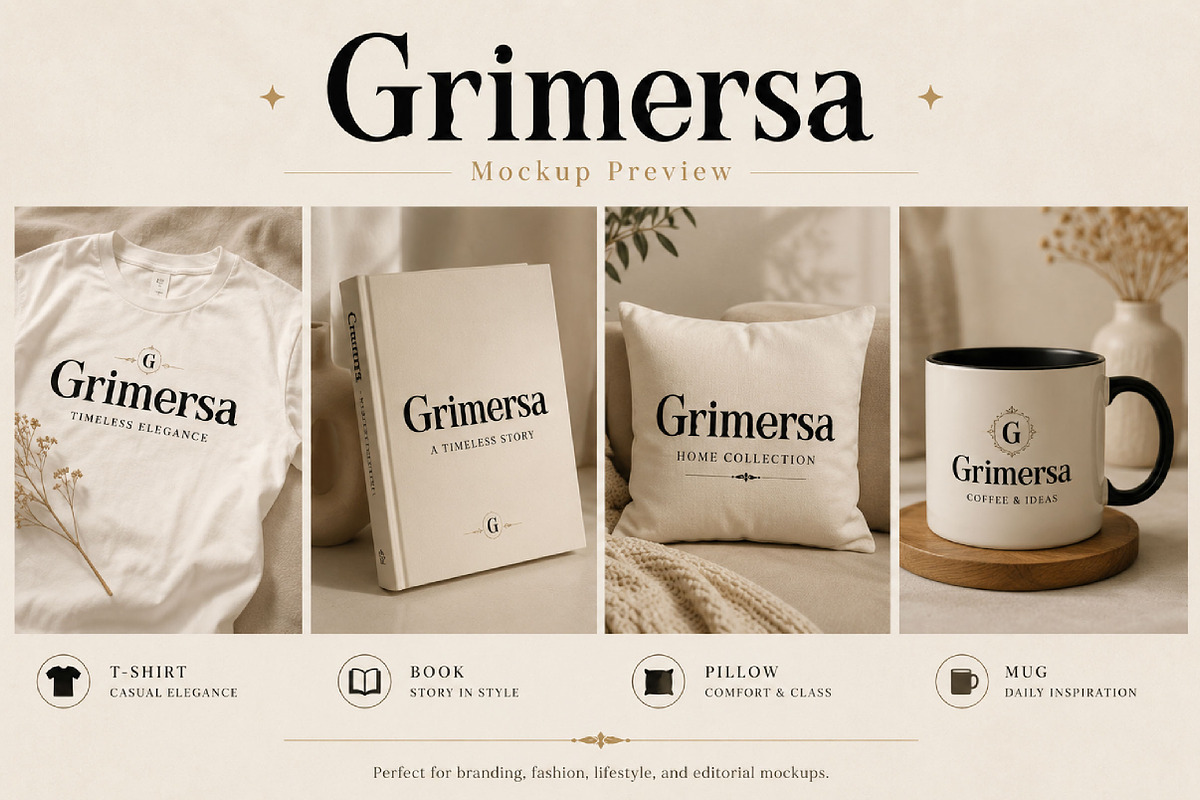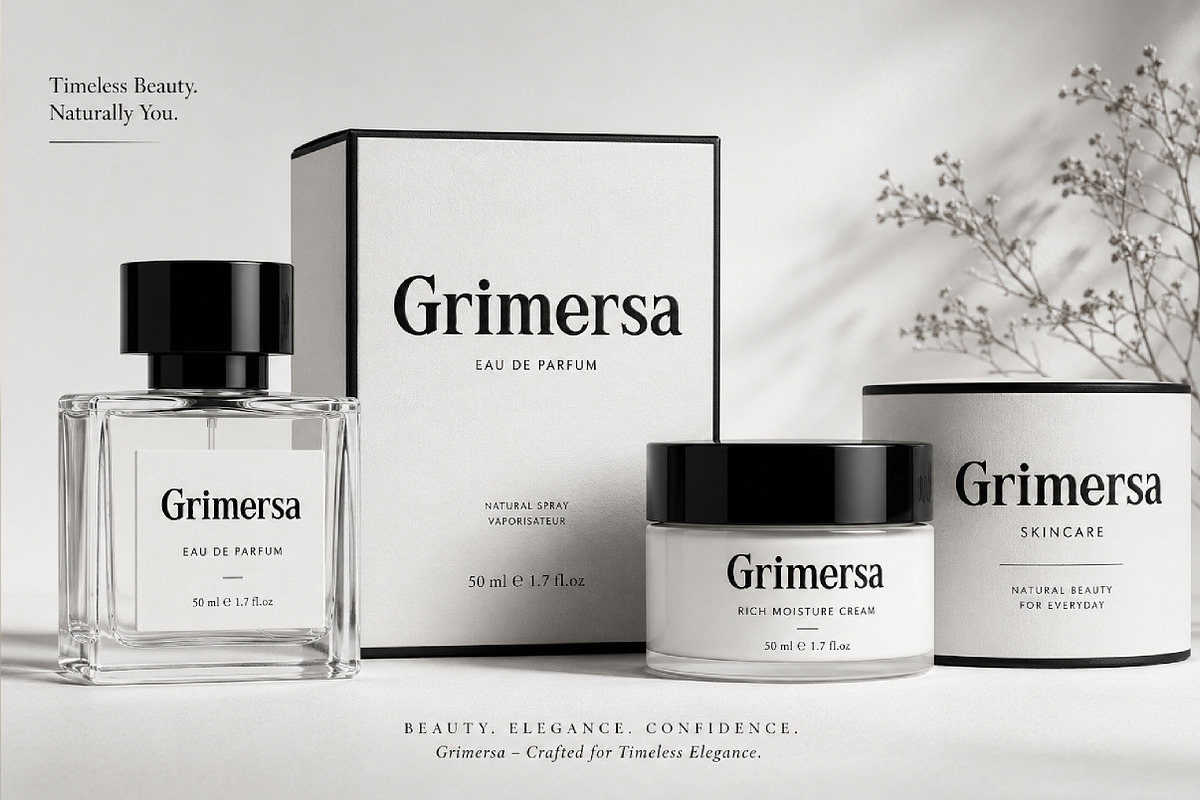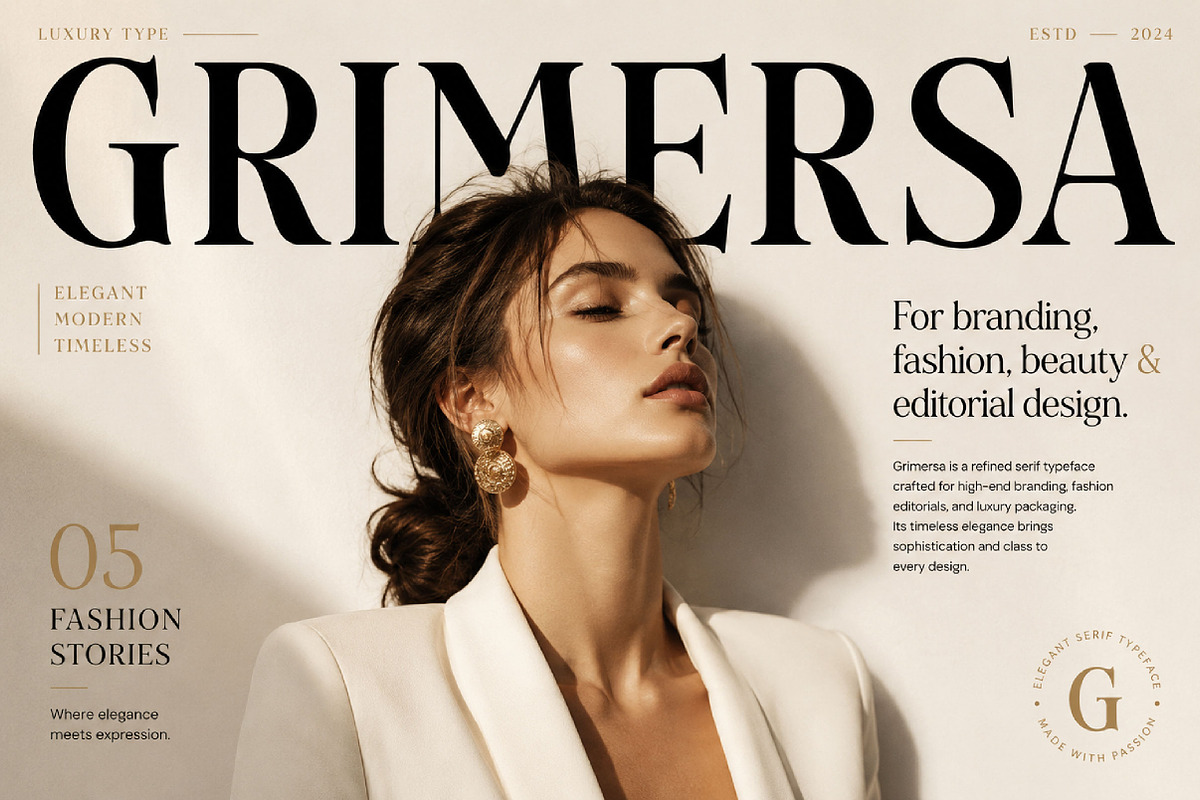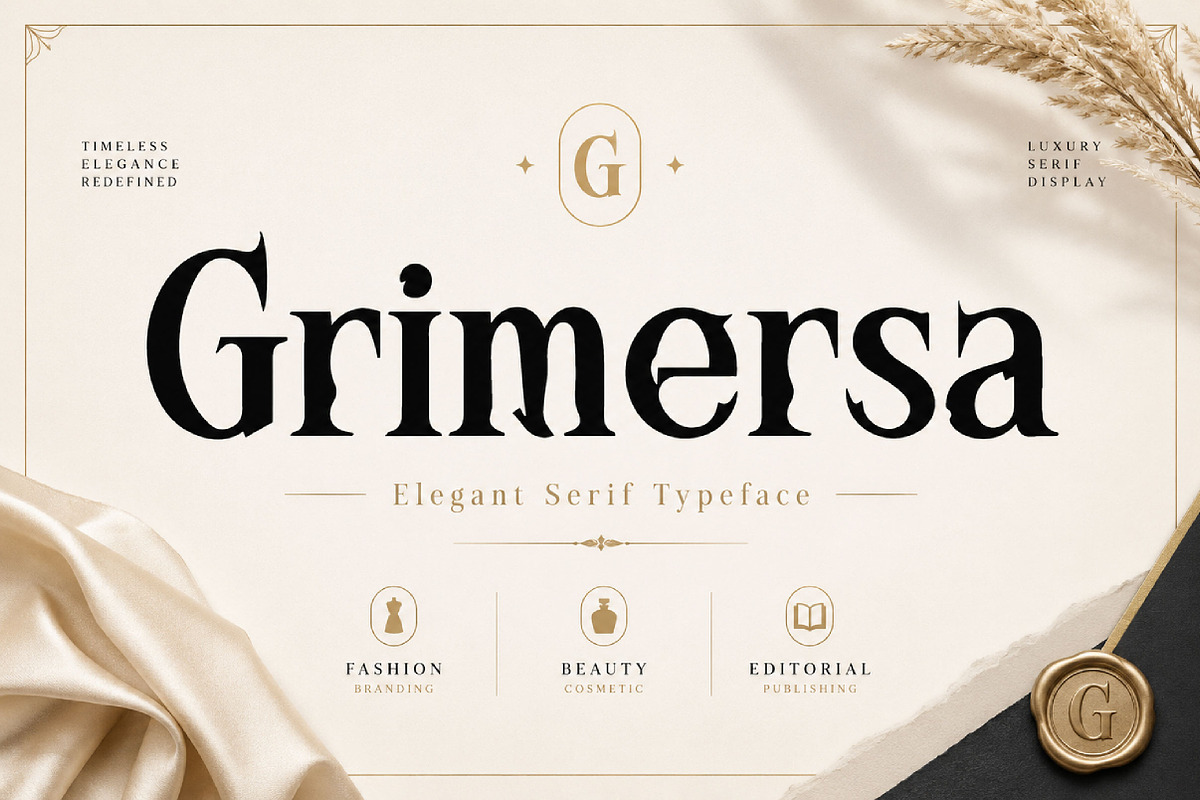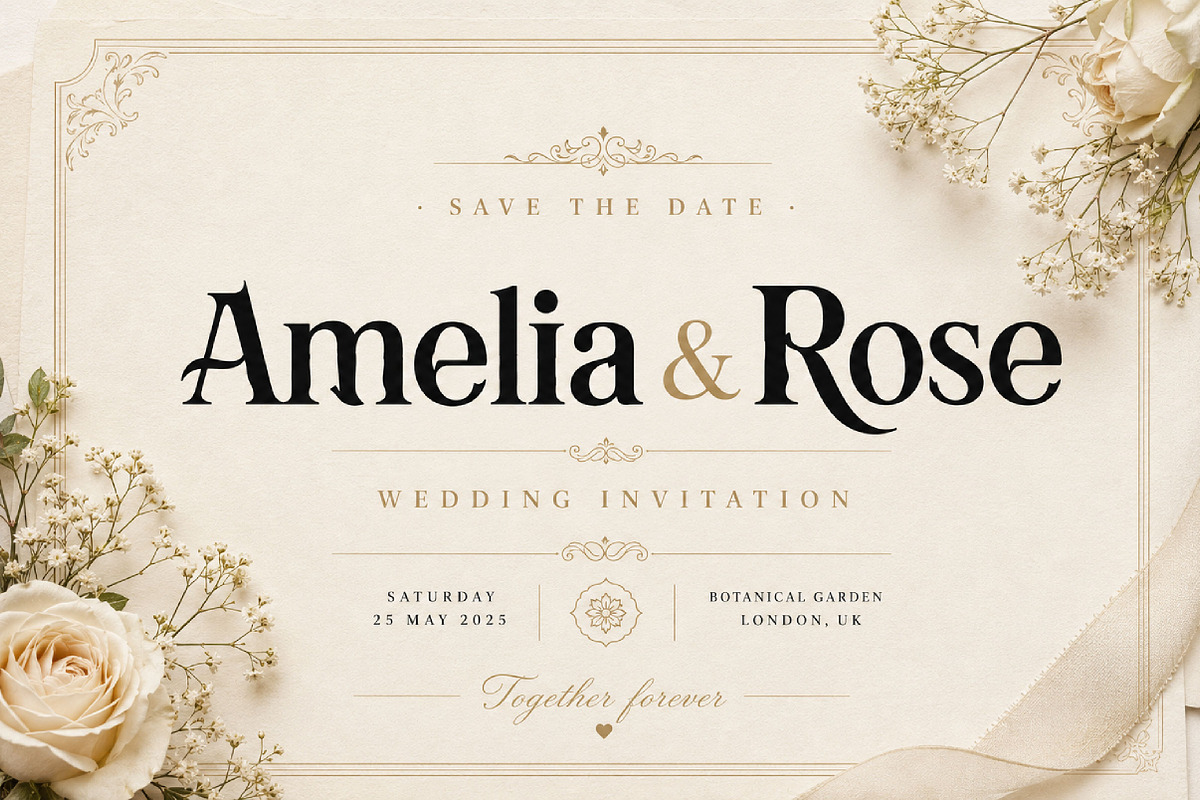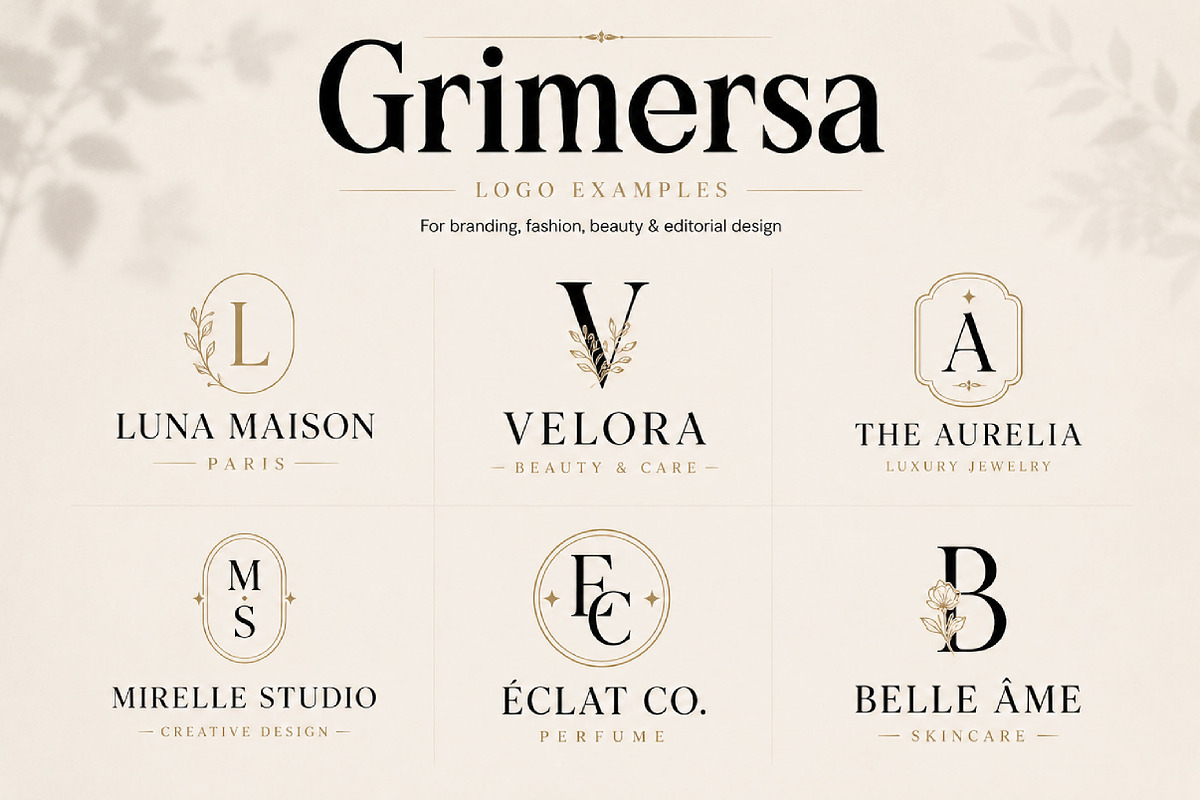
Grimersa
Grimersa – Elegant Classic Serif Font
Grimersa is an elegant classic serif font with bold refined letterforms, perfect for luxury branding, logos, editorial design, packaging, invitations, and sophisticated typography.
Grimersa is a refined serif display font designed with timeless elegance, strong contrast, and graceful curves. Its classic letterforms create a polished and professional appearance, making it ideal for designs that require a premium and sophisticated identity.
This font works beautifully for luxury branding, logo design, magazine layouts, fashion projects, beauty packaging, wedding invitations, stationery, website headers, and editorial typography. The bold serif structure gives Grimersa a confident presence while maintaining a clean and stylish look.
Whether used for print or digital projects, Grimersa adds elegance, clarity, and high-end charm to your typography. It is a great choice for designers who want a font that feels classic, stylish, and beautifully crafted.
Luxury branding
Logo design
Editorial & magazine design
Product packaging
Wedding invitations
Beauty & fashion projects
Premium stationery
Website headers
Posters
Elegant typography
Elegant serif style
Classic refined letterforms
Bold display appearance
Smooth curves
Premium typography feel